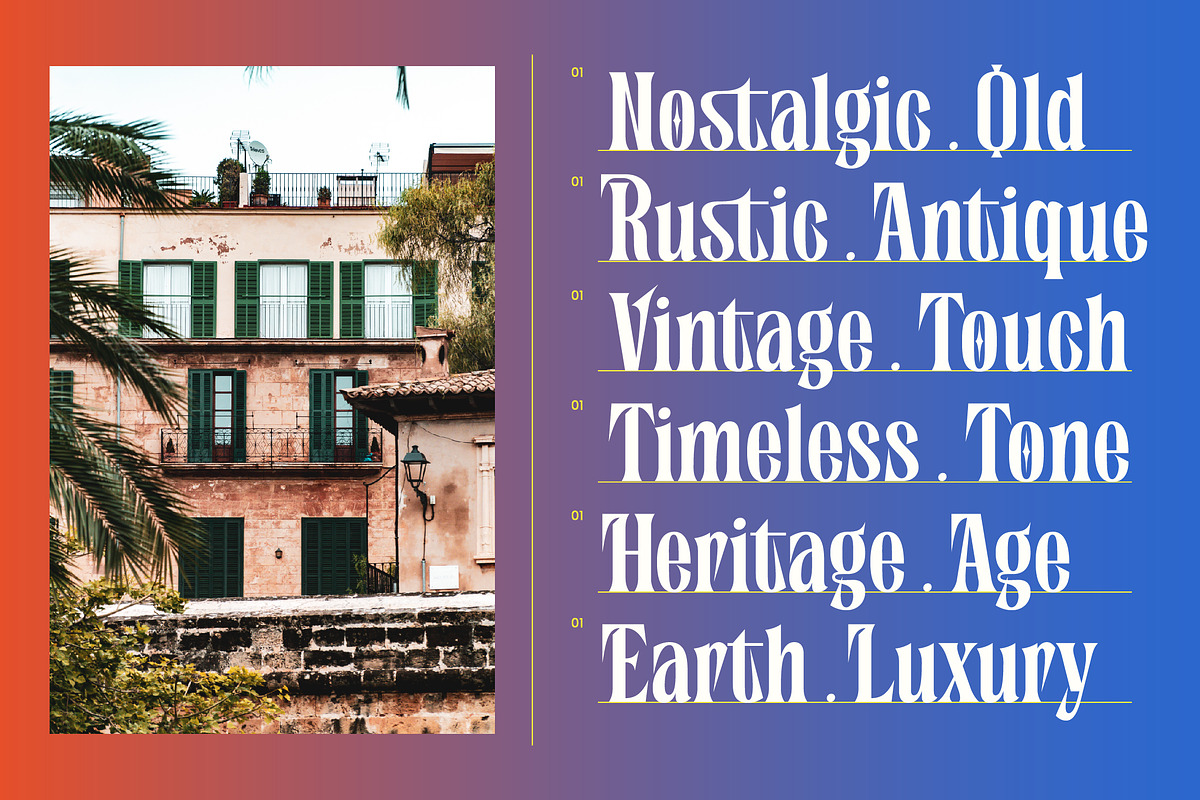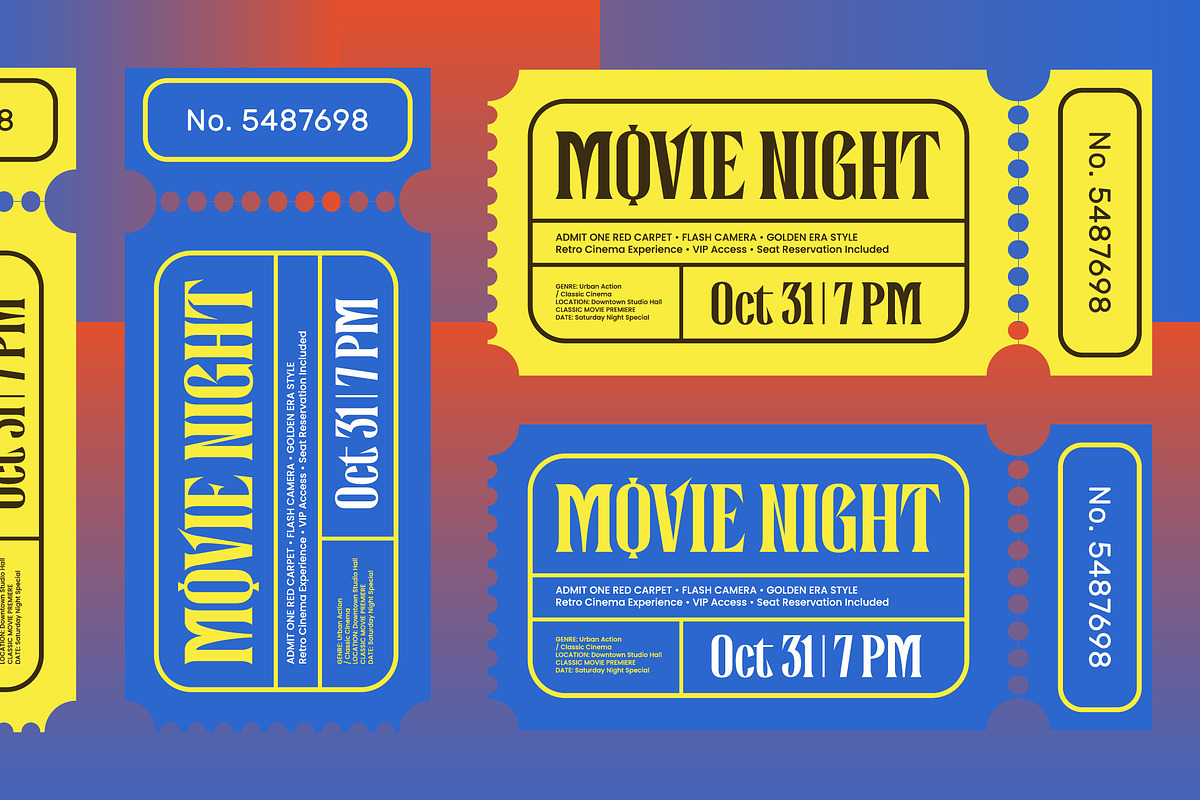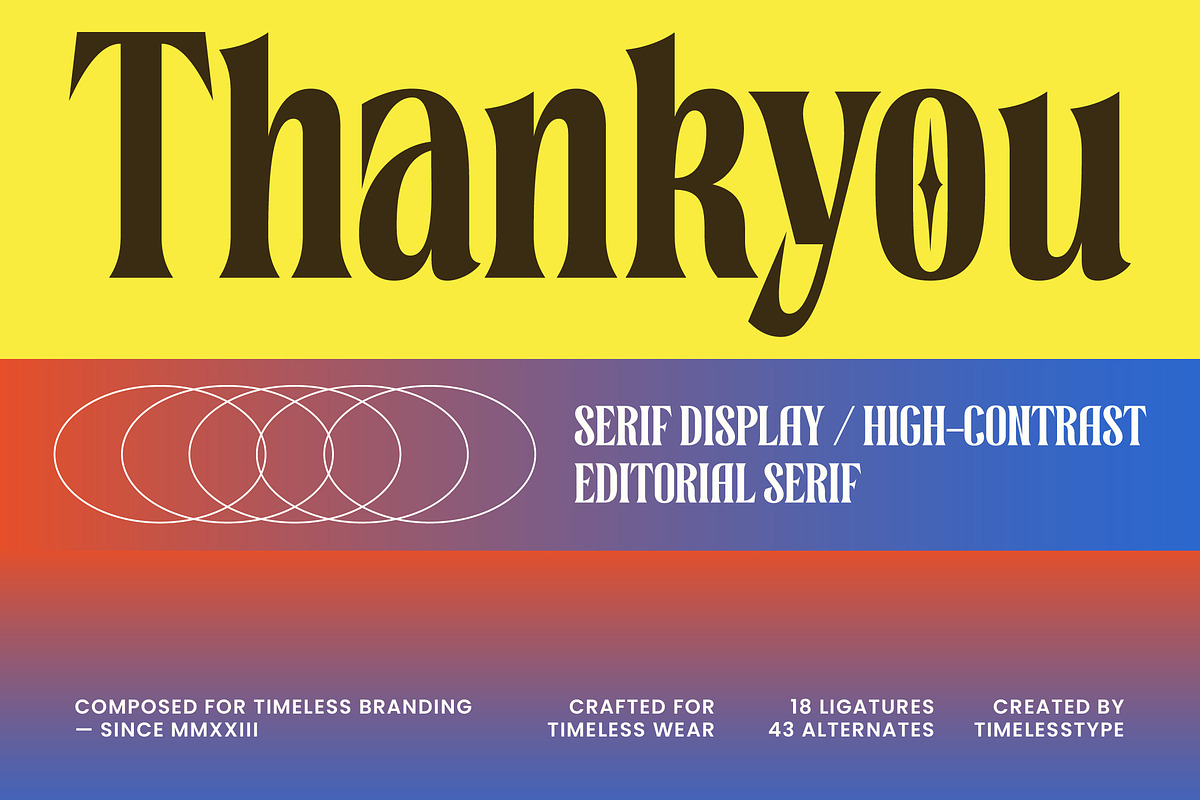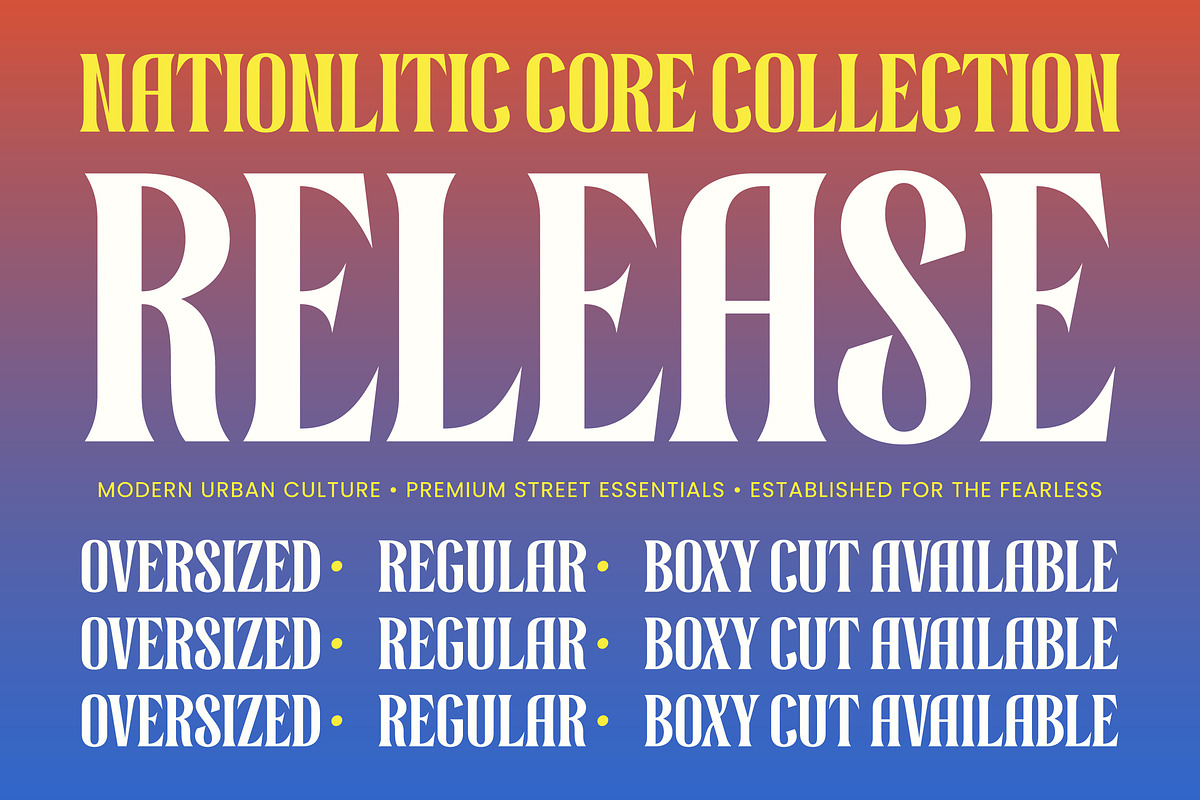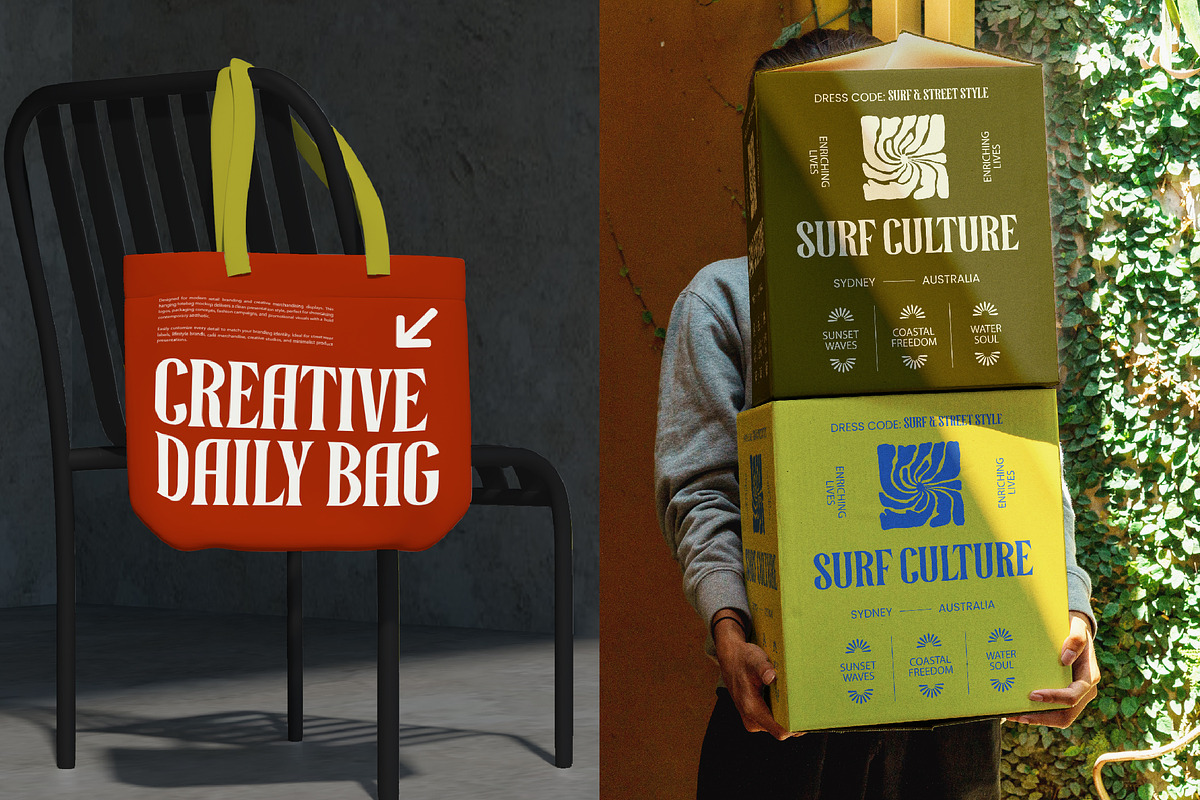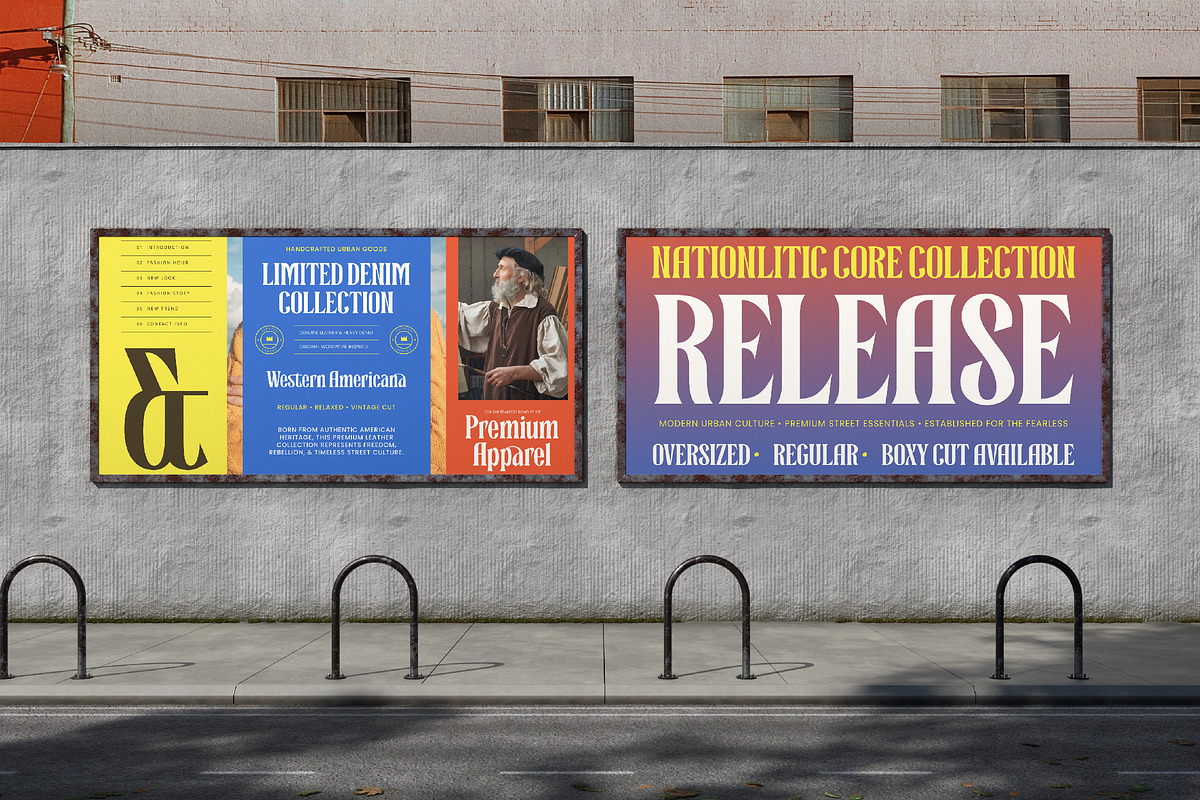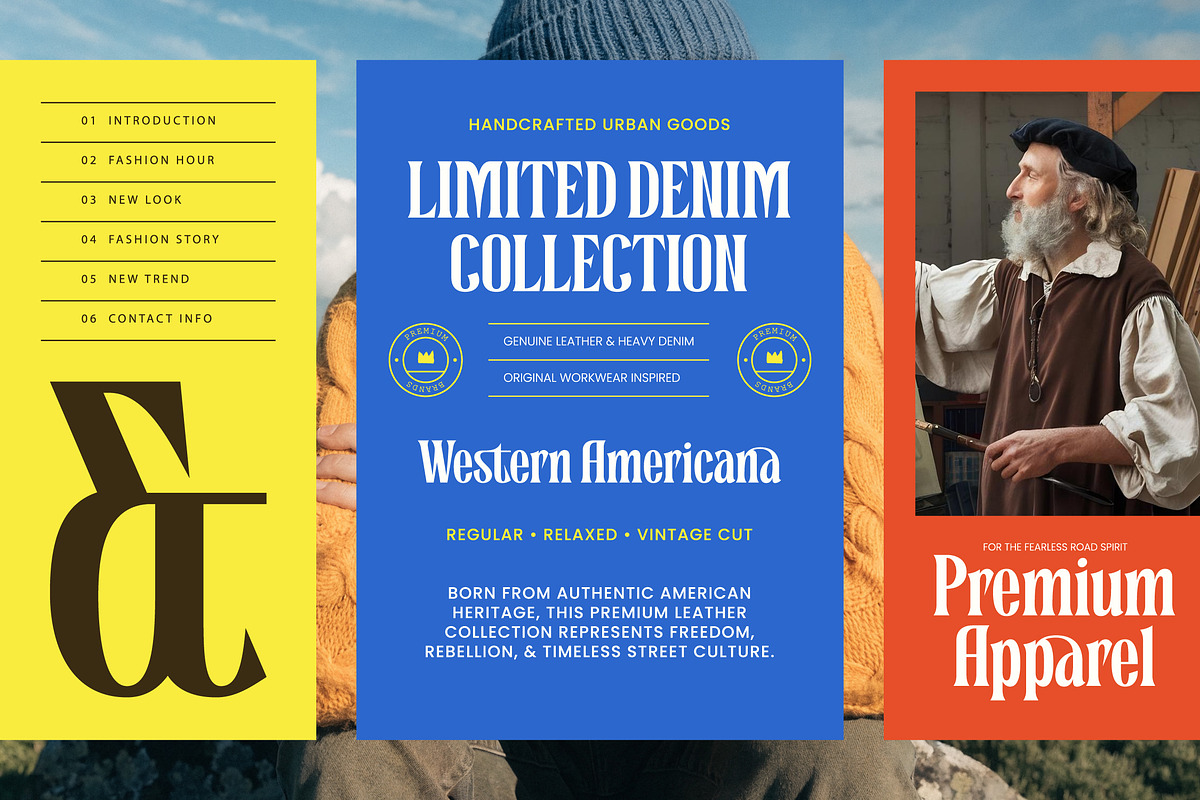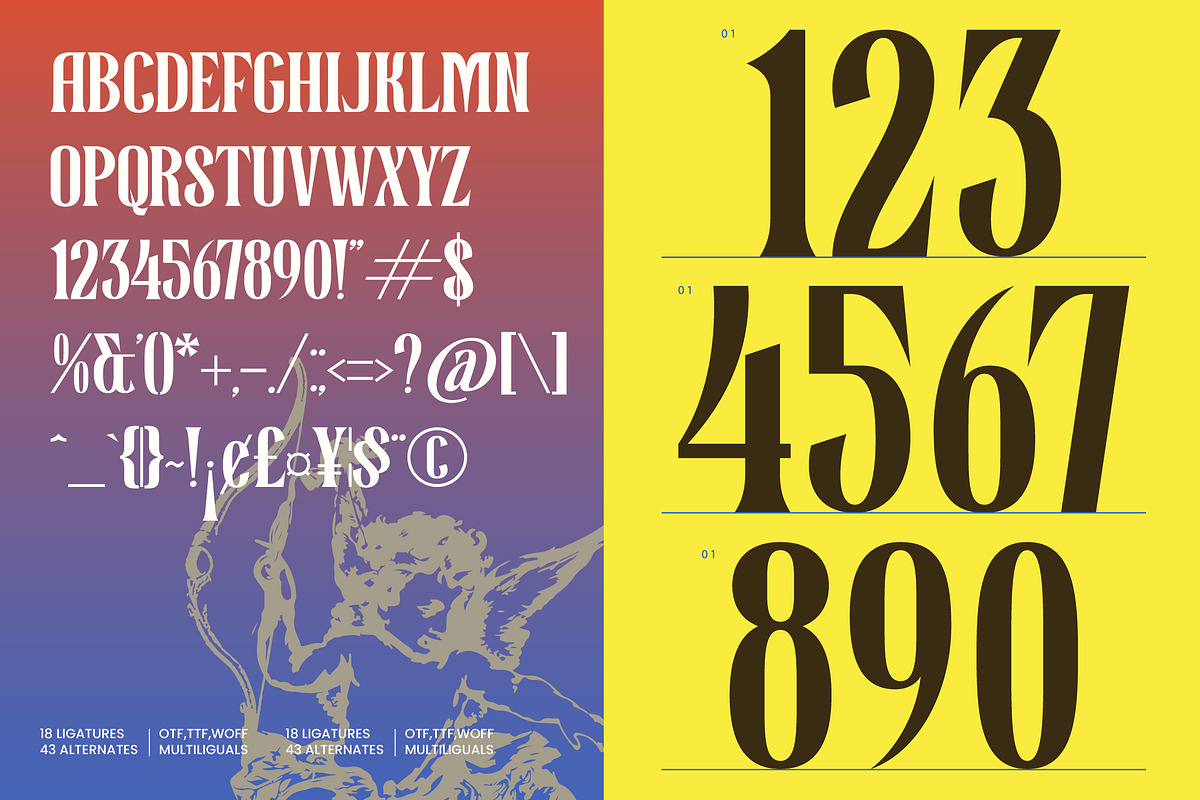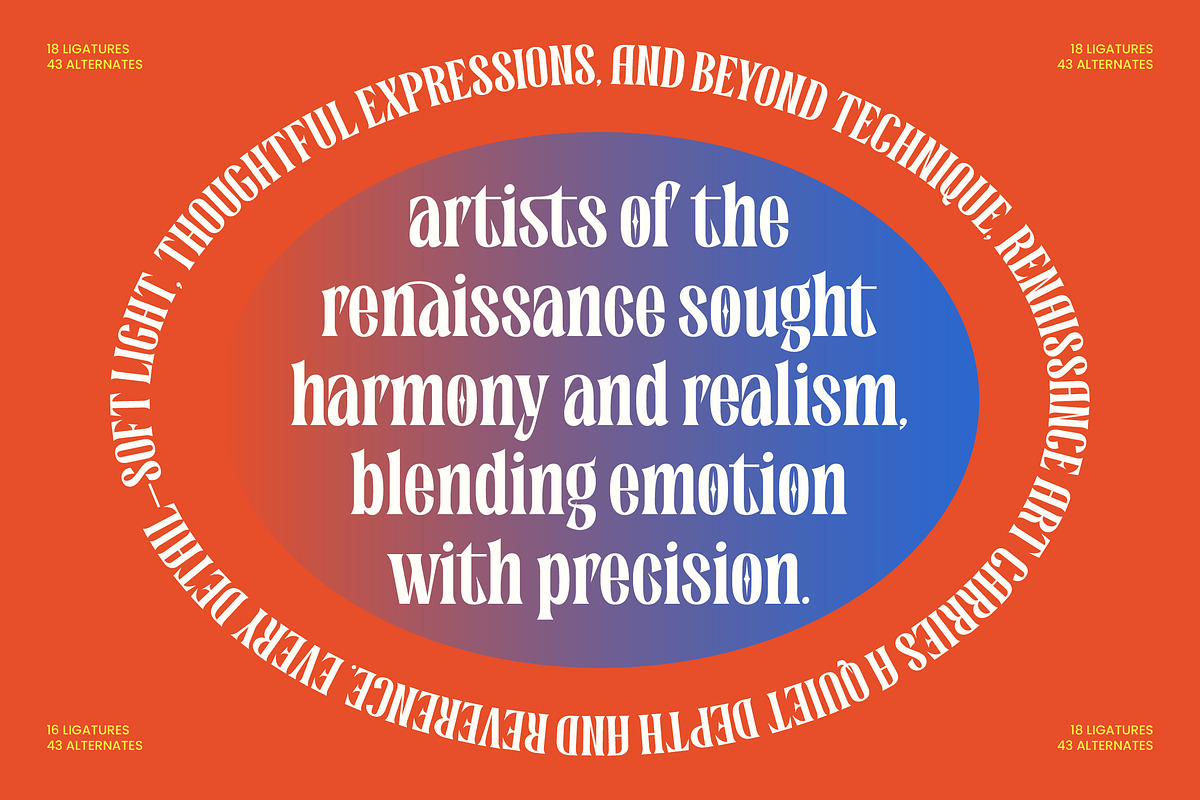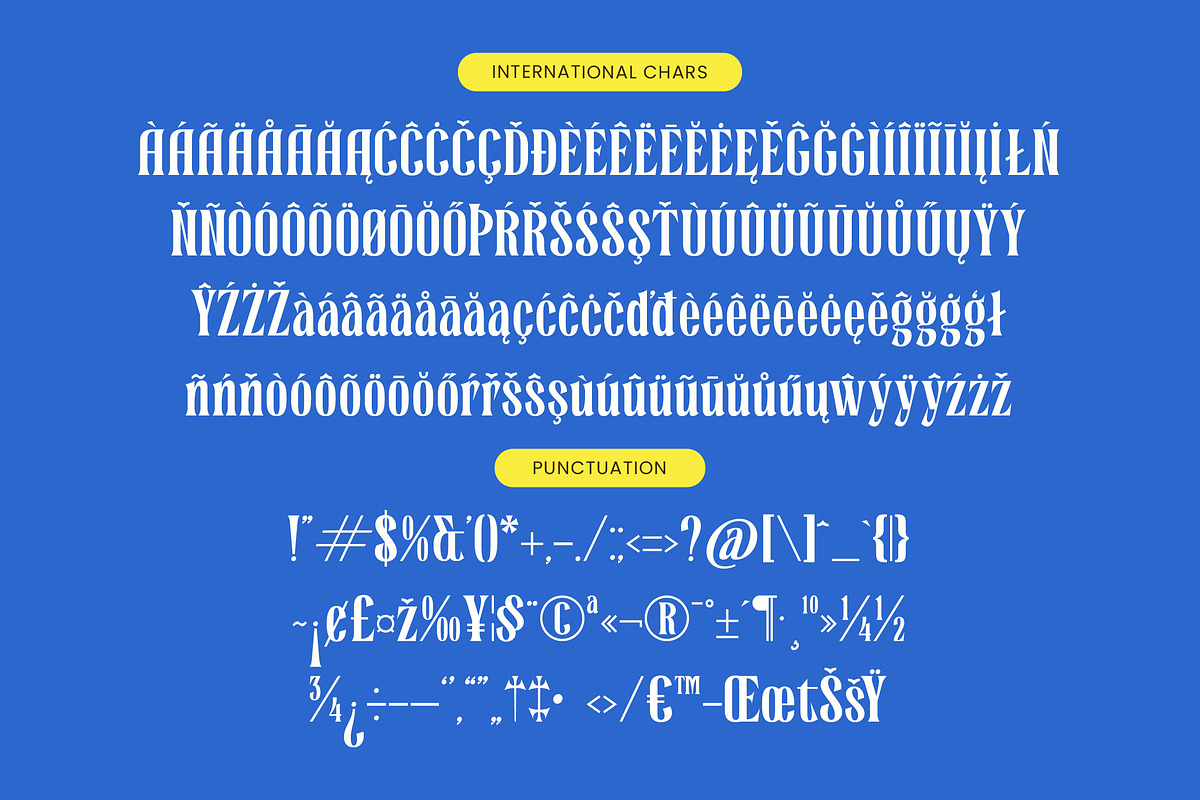
Mognakin Serif Display Font
Mognakin – Serif Display Font , Elevate your creative vision with the sophisticated silhouette of Mognakin – Serif Display Font, a typeface engineered for maximum visual impact. This high-contrast editorial serif blends classical elegance with contemporary flair, making it an essential tool for designers seeking to make a bold statement. Its sharp serifs and fluid, sweeping curves provide a unique aesthetic rhythm that commands attention while maintaining a high level of typographic luxury and professional polish.
Master international communication with a typeface that bridges cultural boundaries through its expansive character set. With its extensive multilingual support, Mognakin – Serif Display Font adapts seamlessly across global markets, making it incredibly versatile for international projects. This global adaptability ensures that your brand’s voice remains consistent and prestigious, whether it is featured in high-end European boutiques or used for global digital campaigns.
Precision meets artistry in every glyph of Mognakin – Serif Display Font, offering a rich library of 18 ligatures and 43 alternates to customize your layouts. These stylistic alternates allow for bespoke typography solutions, ensuring that no two designs look identical. The meticulous craftsmanship behind each letterform guarantees that Mognakin – Serif Display Font remains timeless, providing a premium aesthetic that transcends fleeting design trends.
Unlock the full potential of your commercial assets by integrating Mognakin – Serif Display Font into your design ecosystem. This typeface is the perfect choice for luxury branding, high-end packaging, and editorial design, specifically excelling in the context of fashion magazines and exclusive lifestyle products. Whether used for mastheads, logo design, or sophisticated advertising, it delivers an unparalleled sense of prestige and authority to every page.